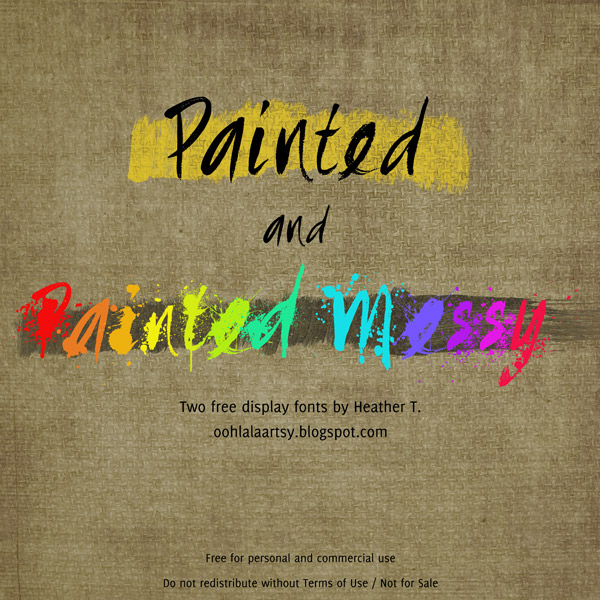
Painted by Heather Taylor is a free brush script with tall, loosely formed letters and abrupt changes in stroke width. Dry, broken edges leave flecks of texture across the sharper turns.
Packaging is a natural setting for its handmade marks, especially on craft food labels and small-batch drink branding. It also suits music posters and festival merchandise, where the restless strokes can echo screen-printed artwork. Its rough finish points toward indie rock, street art, and deliberately unpolished visual genres.
Includes two fonts: Painted and Painted Messy.